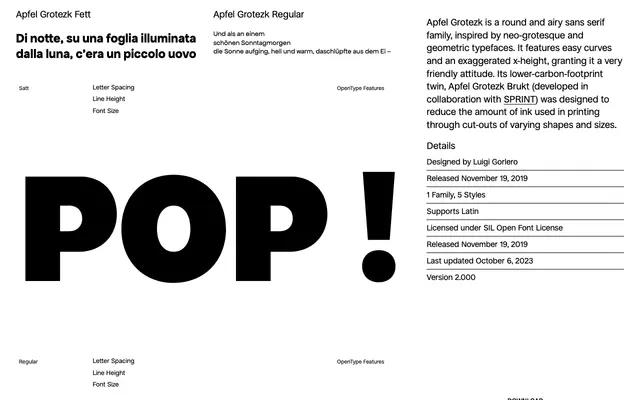
Apfel Grotezk
Collletttivo · Luigi Gorlero · 2019
A round, airy grotesque with an exaggerated x-height, notable for its lower-ink-consumption variant Brukt developed with SPRINT.
Designed by Luigi Gorlero and released in 2019, this five-style family draws on neo-grotesque and geometric traditions while leaning into a friendlier register through soft curves and a generous x-height. The Brukt sub-family introduces cut-outs of varying shapes and sizes to reduce ink coverage in print, developed in collaboration with SPRINT. Available under the SIL Open Font License, it covers Latin with broad accented character support.
Described by the foundry as inspired by neo-grotesque and geometric typefaces, with easy curves and an exaggerated x-height, placing it at the intersection of those two traditions.